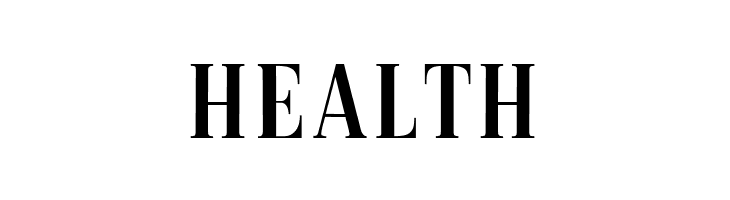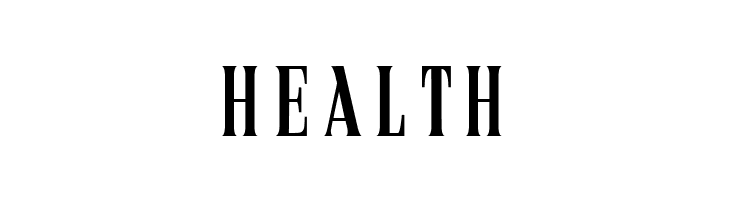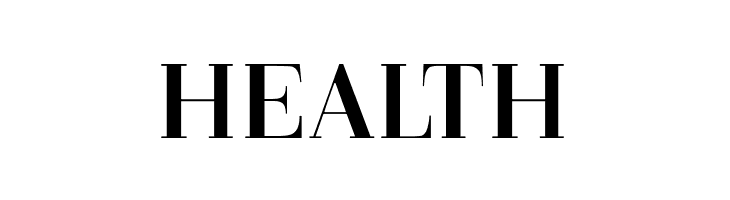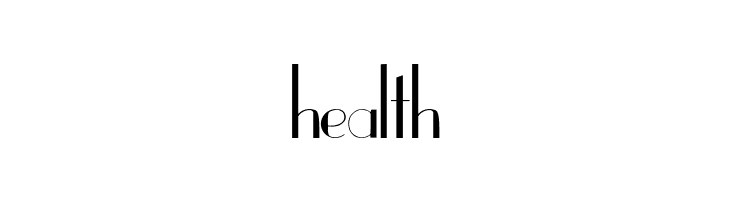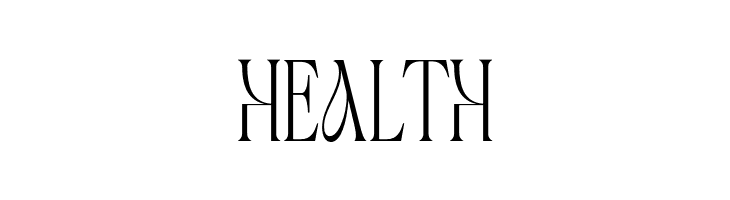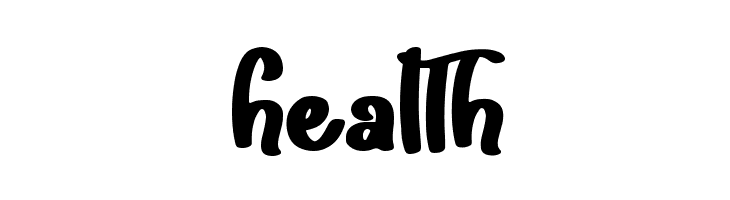
A bold, high-contrast serif font with elegant curves and dramatic style.
A bold, high-contrast serif font with a classic yet modern style.
A tall, elegant serif font with high contrast and narrow width.
A classic serif font with high contrast and elegant strokes.
A sophisticated, high-contrast font with elegant, modern lines.
An elegant, high-contrast font with unique curves and a modern flair.
An elegant serif typeface with high contrast and Art Nouveau influences.
A bold, italicized brush-style font with dynamic and expressive strokes.
A bold, expressive handwritten font with dynamic strokes and artistic flair.
A playful, bold script font with a hand-drawn, whimsical style.